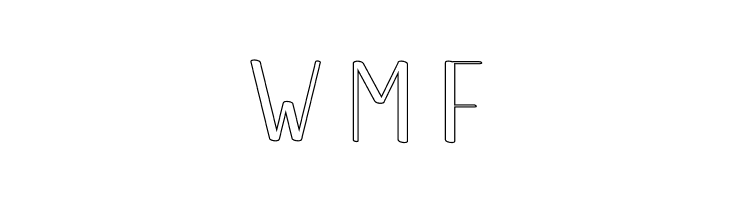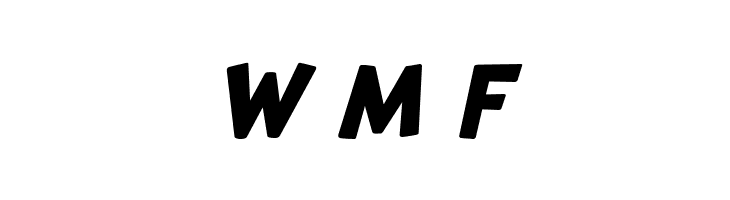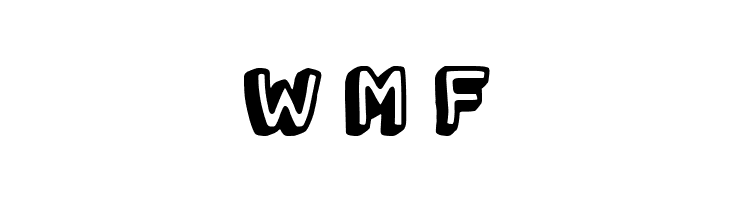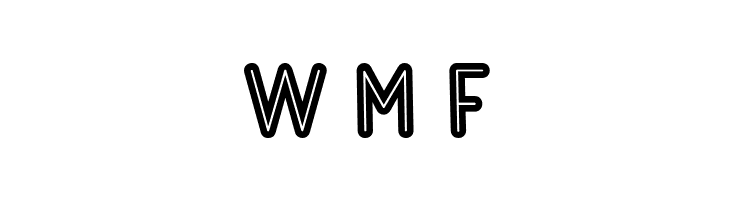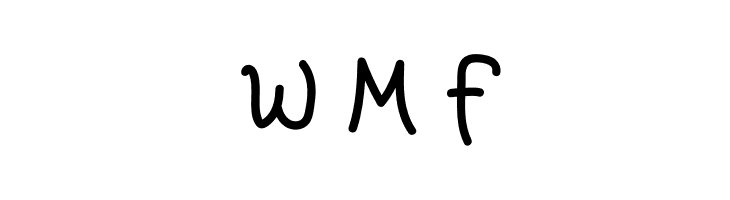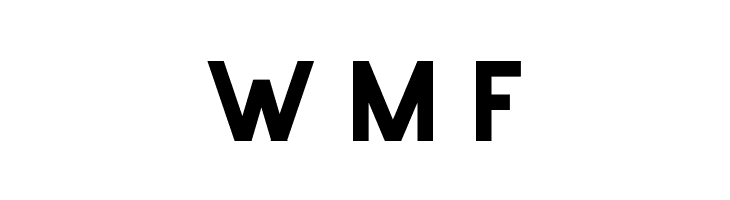
A graceful, cursive font with elegant, flowing strokes.
A playful, hand-drawn outlined font with a whimsical and friendly style.
A bold, playful font with a slight italic slant and rounded characters.
A playful, bold font with a bubble-like, outlined style.
A playful, outlined font with rounded characters and a bold, friendly style.
A playful, bold font with rounded, thick strokes and a friendly appearance.
A playful, hand-drawn font with quirky embellishments and a casual style.
A playful, bold font with thick, rounded characters and a bubbly appearance.
A playful, bold font with cartoonish faces on each character.
A bold, modern sans-serif font with clean, geometric letterforms.